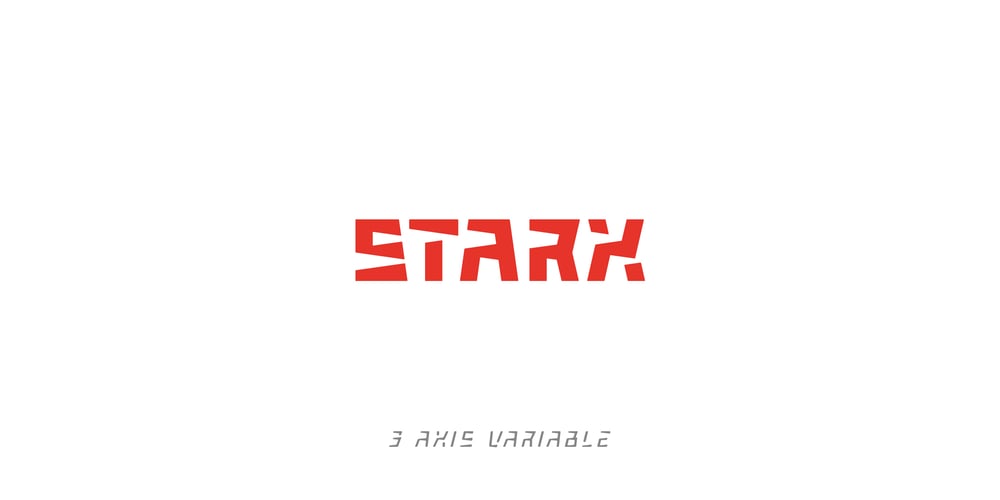
Starx Font Family was designed by Koray Özbey and published by Koray Özbey. Starx contains 2 styles and family package options. Starx is a variable display typeface with angular lines, offering a futuristic and dynamic aesthetic. It consists of three axes: angular, rounded, and slanted.The bold version embodies a strong and high-tech expression, while the italic and rounded versions convey a dynamic, sporty, and futuristic impact.